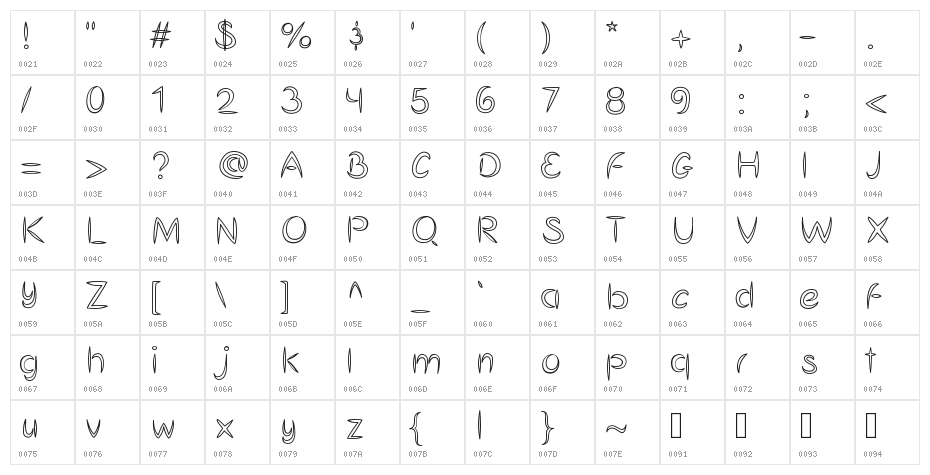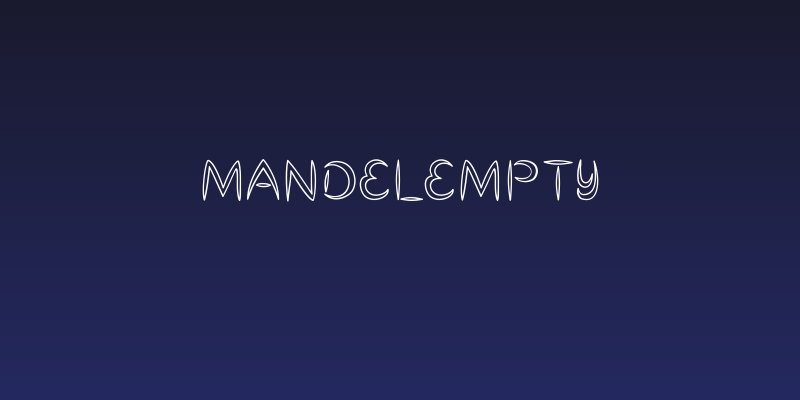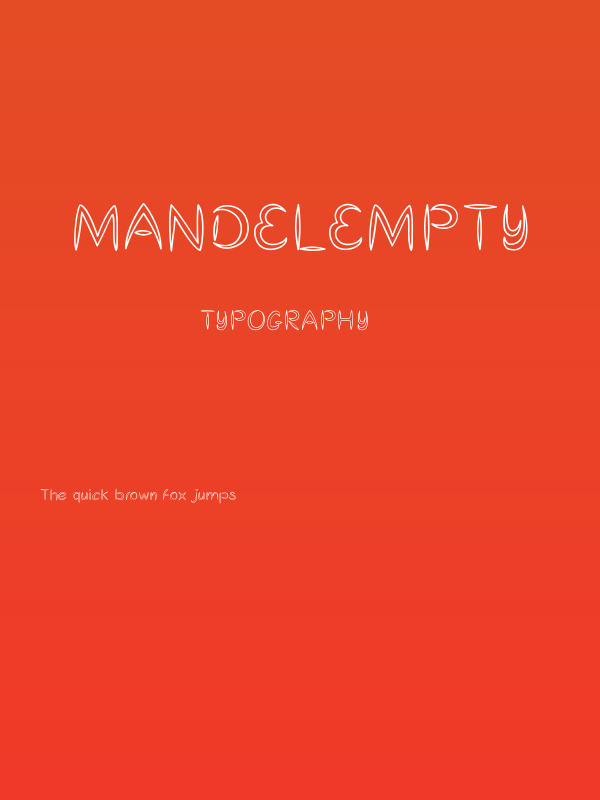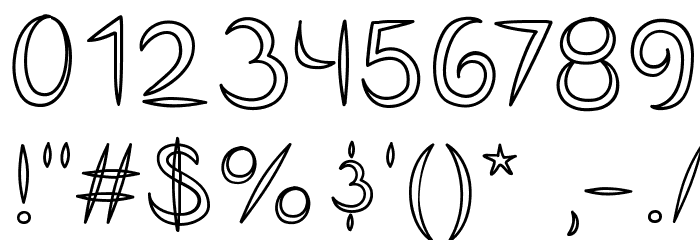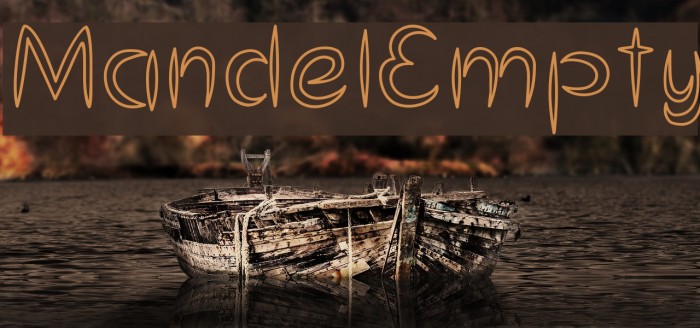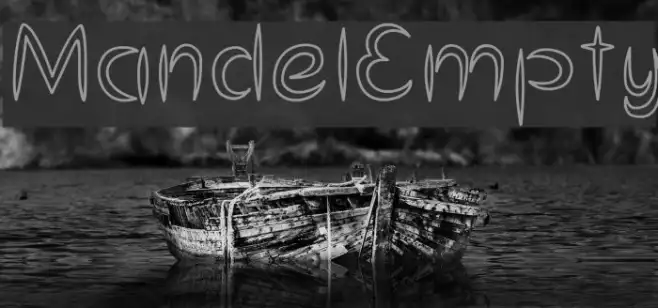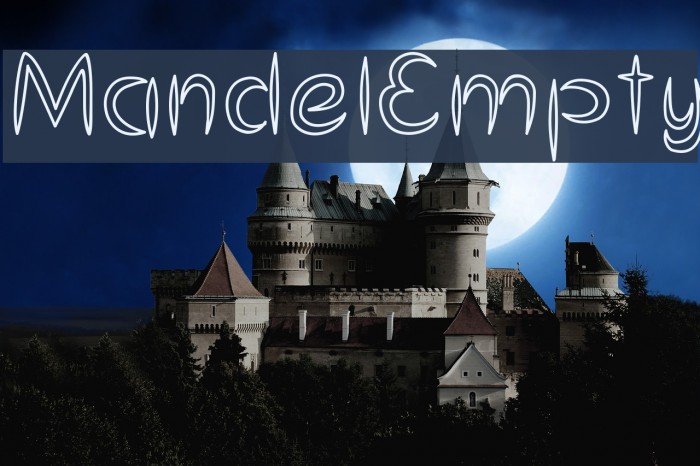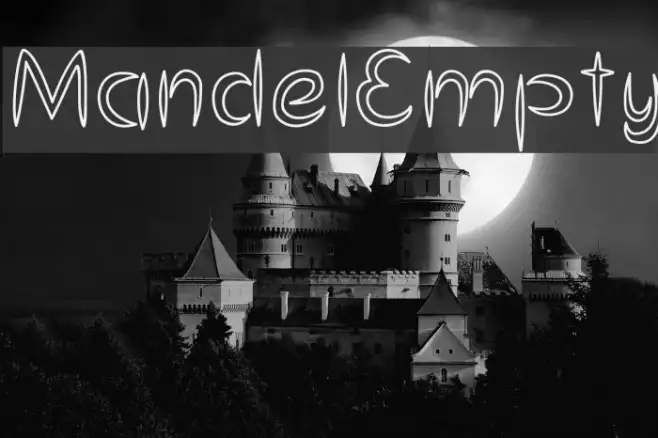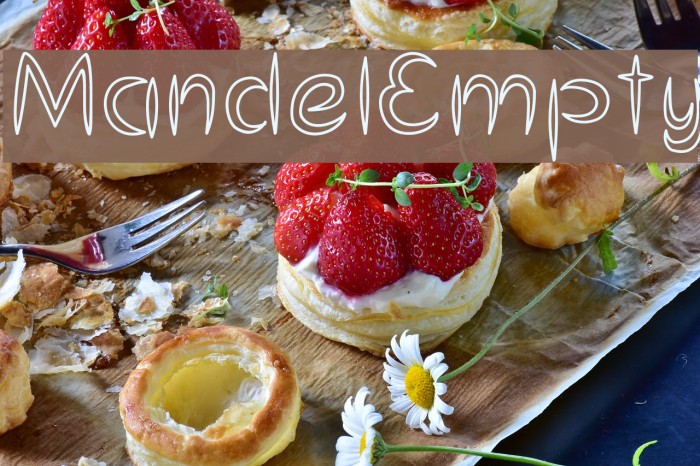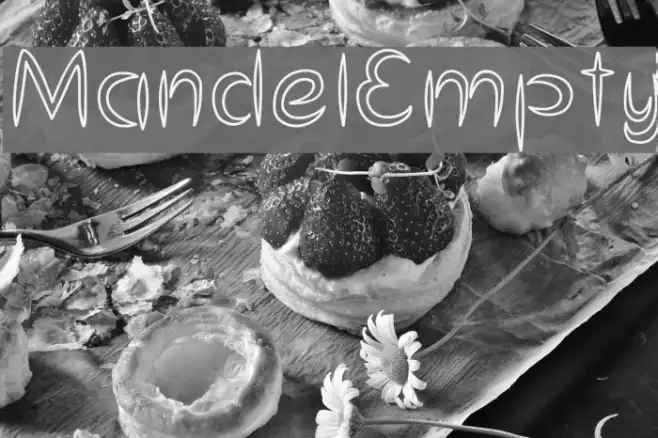
MandelEmpty Font
MandelEmpty Description
This font features a playful and artistic design, characterized by its hollow, outlined letters that give it a unique and airy appearance. The strokes are smooth and rounded, with a consistent thickness that adds to its whimsical charm. The uppercase and lowercase letters maintain a cohesive style, with slight variations in curves and angles that enhance its creative flair. The numerals and special characters follow the same design principles, ensuring a harmonious look across all elements. This font's distinct style makes it ideal for projects that require a touch of fun and creativity.
| Proposed Projects | Ideal for children's books, playful branding, creative posters, and artistic invitations. |